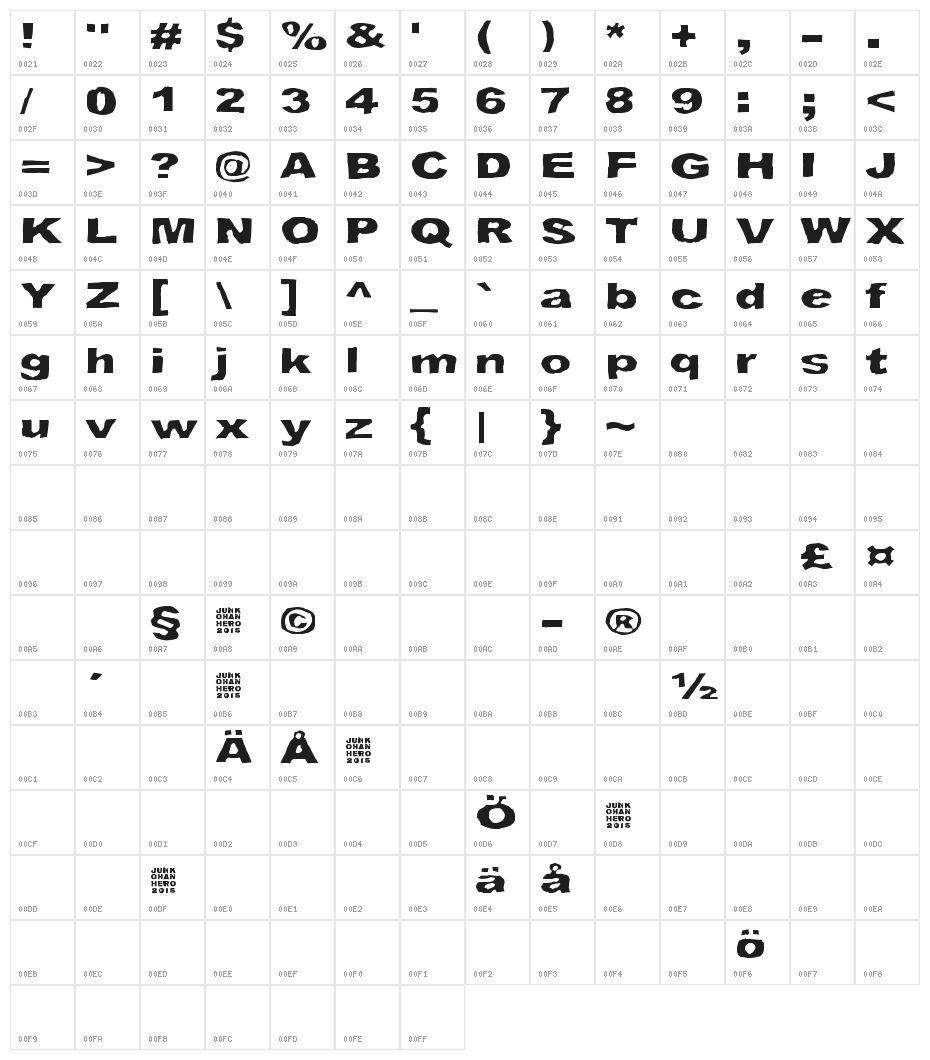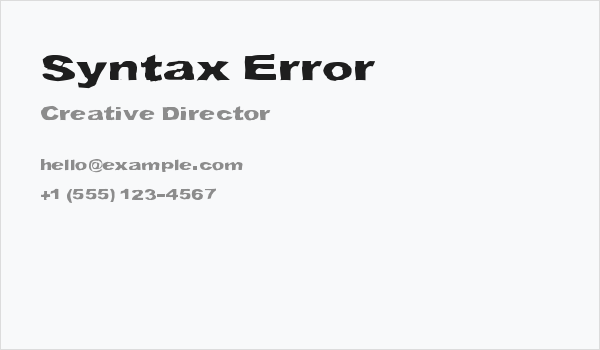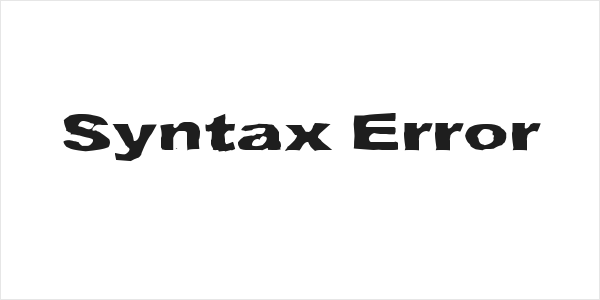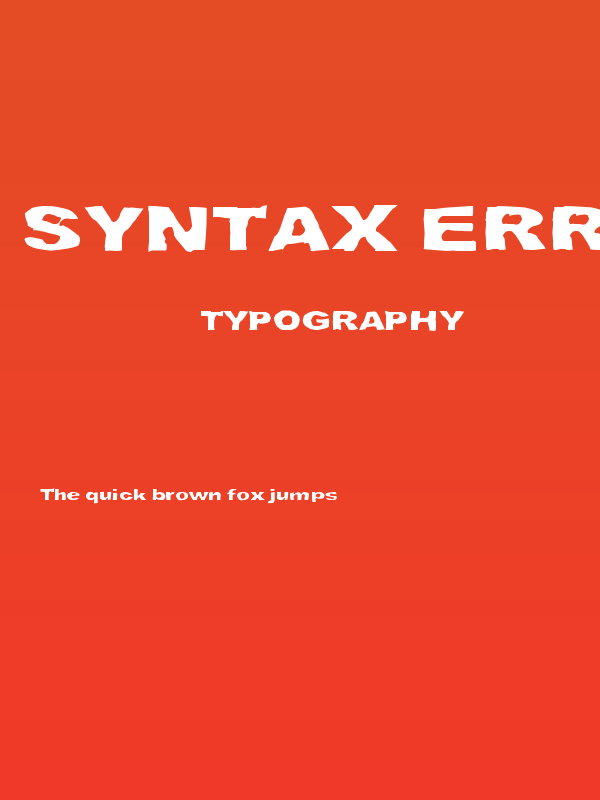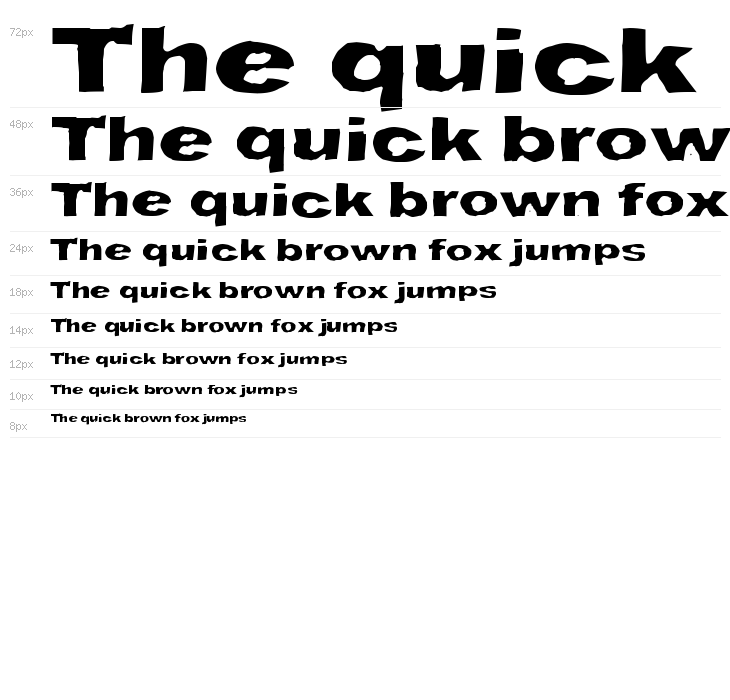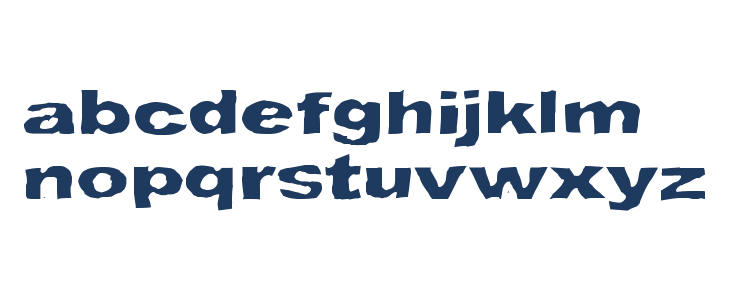
Syntax Error Font
Syntax Error Description
This font features a bold and dynamic style with a slightly irregular and hand-crafted appearance. The characters are thick and robust, giving a strong visual impact. The edges are uneven, adding a touch of playfulness and uniqueness to the overall design. This font is highly legible and stands out due to its distinctive and artistic flair. The uppercase and lowercase letters maintain a consistent weight, while the numerals and special characters follow the same bold and expressive style. The font's design is suitable for projects that require a creative and eye-catching look.